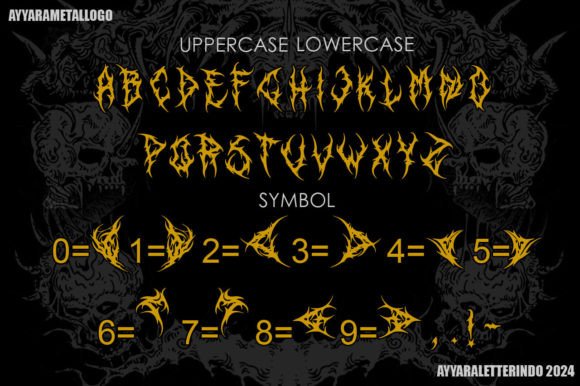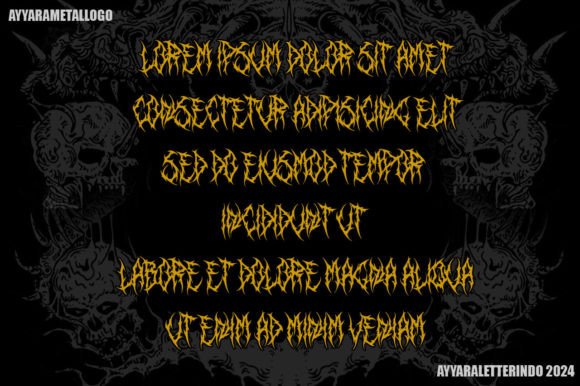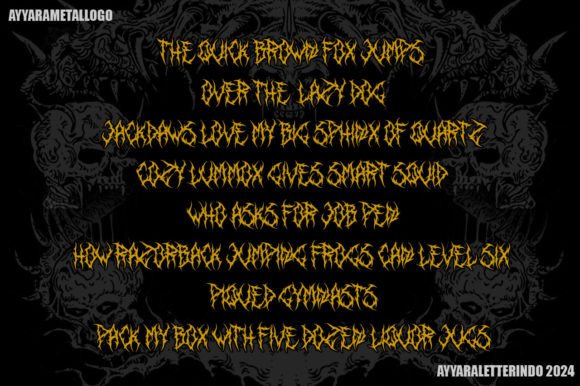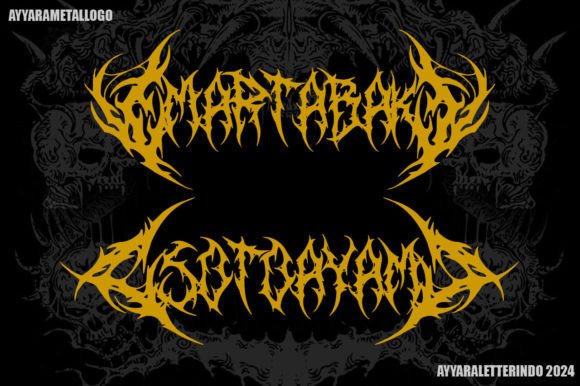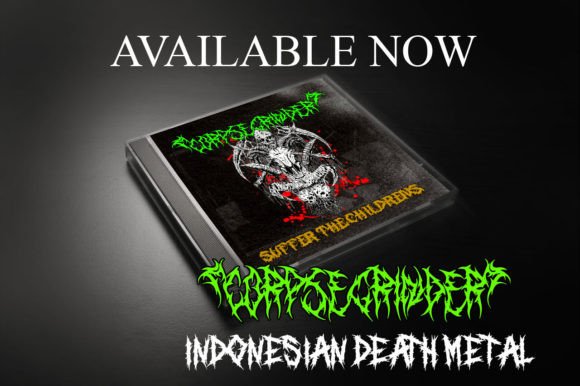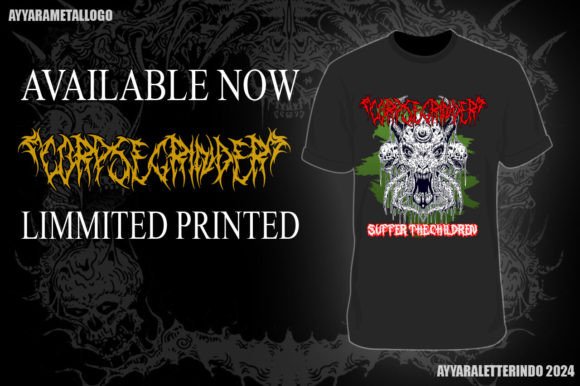
Introduction to Krangkeng Font
Krangkeng is a death metal font that can be used for logos or branding and your metal band name.
You can immediately make your band or brand logo name with the help of this unique black letter font Combine it with black metal or death metal ornaments and make your cool metal design with ease.
Key Features of Krangkeng Font